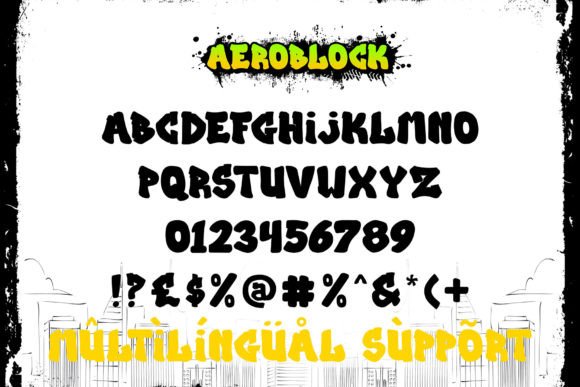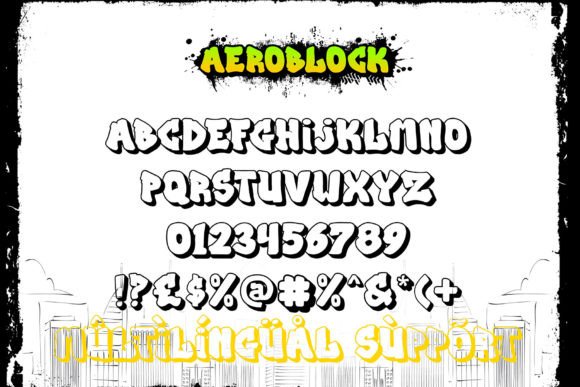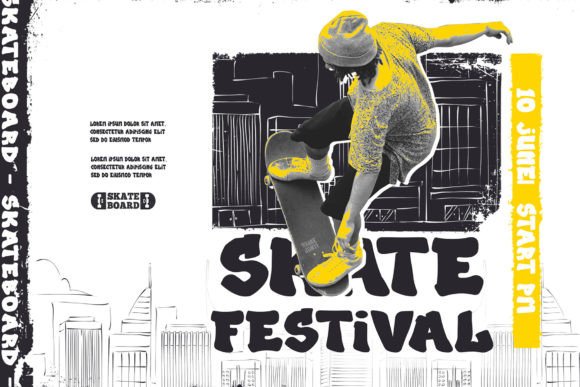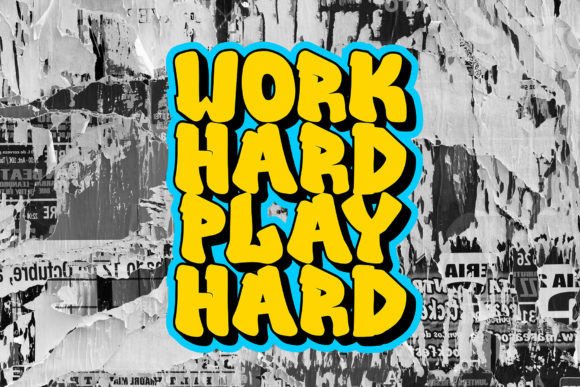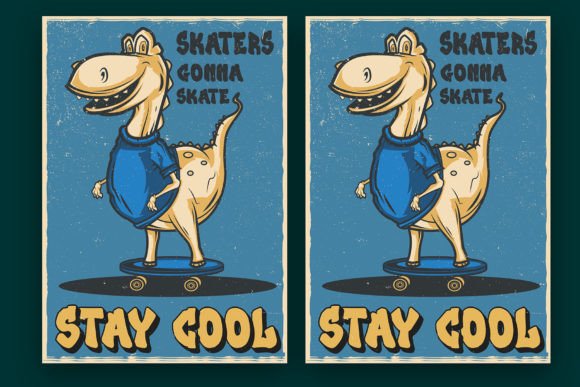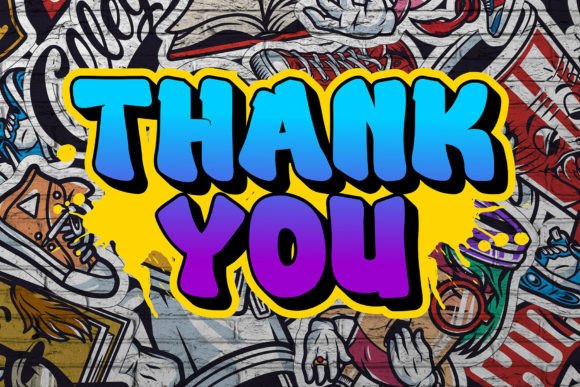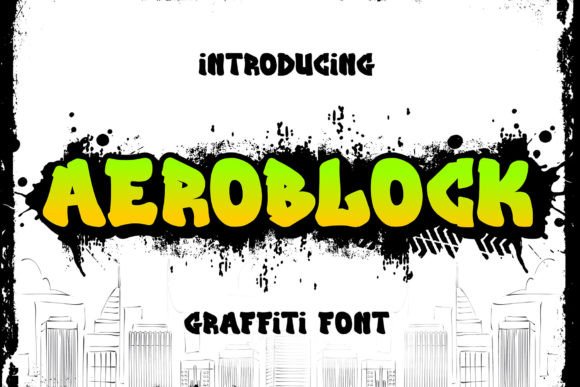
Aeroblock Font: Unleash Your Creativity with this Urban Graffiti Font
Are you a designer or crafter looking for a font that can add a touch of edginess to your projects? Look no further than Aeroblock, an urban graffiti font characterized by rounded edges and a bold look. In this article, we’ll dive into the world of Aeroblock and explore its features, benefits, and uses.
What is Aeroblock Font?
Aeroblock is a unique and stylish font that is perfect for music posters, apparel designs, shirts, and streetwear. Its bold and edgy look makes it an ideal choice for designers who want to create a strong and powerful statement. The font’s rounded edges give it a distinctive look that sets it apart from other graffiti fonts.
Key Features of Aeroblock Font
• Rounded Edges: Aeroblock’s rounded edges give it a soft and smooth look that is both stylish and eye-catching.
• Bold Look: The font’s bold look makes it perfect for creating strong and powerful statements.
• Urban Graffiti Style: Aeroblock is inspired by urban graffiti, making it perfect for street style or urban graffiti themes.
• Versatile: The font is versatile and can be used for a variety of projects, including music posters, apparel designs, shirts, and streetwear.
Benefits of Using Aeroblock Font
So, why should you use Aeroblock font for your projects? Here are just a few benefits:
• Adds Edginess: Aeroblock adds a touch of edginess to your projects, making them stand out from the crowd.
• Perfect for Urban Themes: The font’s urban graffiti style makes it perfect for street style or urban graffiti themes.
• Increases Visibility: The bold look of Aeroblock makes it easy to read and increases visibility, even from a distance.
Uses of Aeroblock Font
Aeroblock font can be used for a variety of projects, including:
• Music Posters: Create eye-catching music posters with Aeroblock’s bold and edgy look.
• Apparel Designs: Add a touch of edginess to your apparel designs with Aeroblock’s unique style.
• Shirts: Create stylish and eye-catching shirts with Aeroblock’s bold look.
• Streetwear: Aeroblock is perfect for streetwear designs, adding a touch of urban style to your projects.
Tips for Using Aeroblock Font
Here are a few tips for using Aeroblock font:
• Use it Boldly: Aeroblock is a bold font, so use it boldly to make a statement.
• Experiment with Colors: Try out different colors to add depth and interest to your designs.
• Pair it with Other Fonts: Aeroblock can be paired with other fonts to create a unique and stylish look.
In conclusion, Aeroblock font is a unique and stylish font that is perfect for designers and crafters looking to add a touch of edginess to their projects. Its bold and edgy look, rounded edges, and urban graffiti style make it an ideal choice for music posters, apparel designs, shirts, and streetwear. With its versatility, ease of use, and bold look, Aeroblock is the perfect font for anyone looking to create a strong and powerful statement.